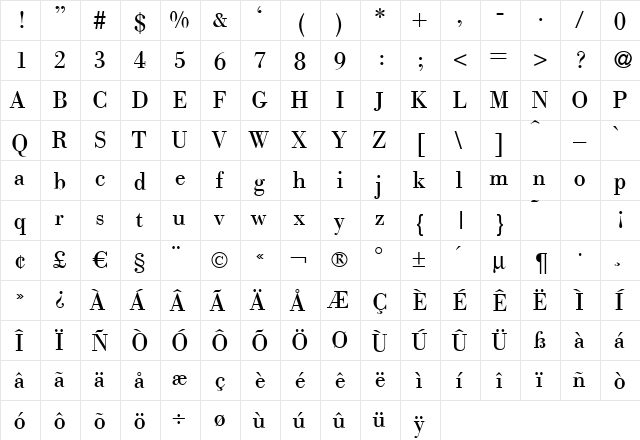
ModernBodoni Regular
Design Context for ModernBodoni Typeface
ModernBodoni offers clean, dependable letterforms without strong stylistic allegiance, making it a practical choice for designers who need flexibility.
Pro Tip: Pair ModernBodoni with a font of contrasting weight or personality to build a more expressive typographic hierarchy.